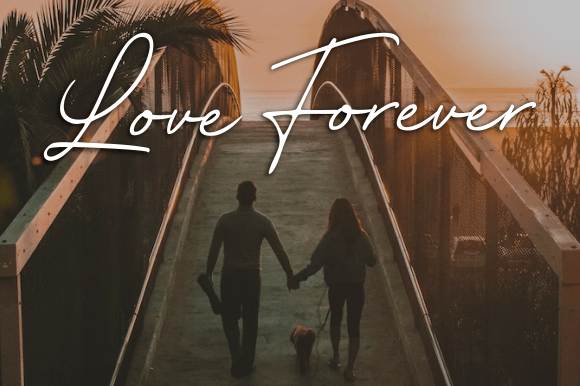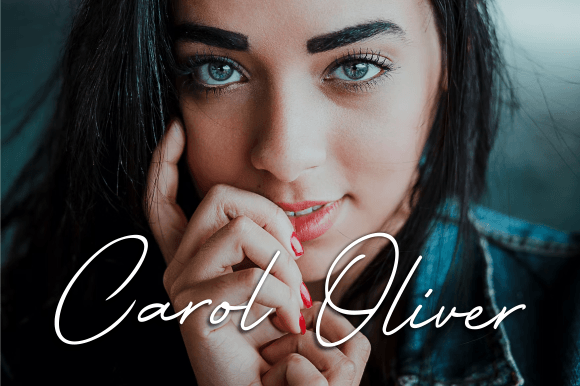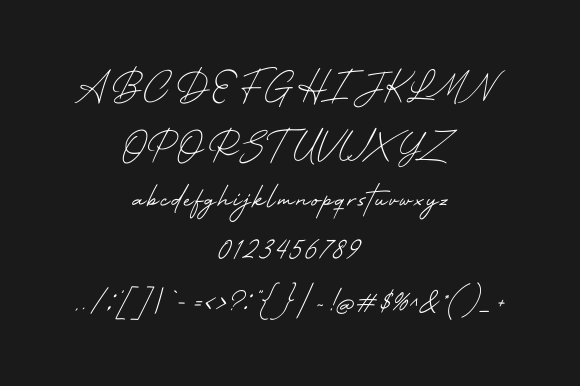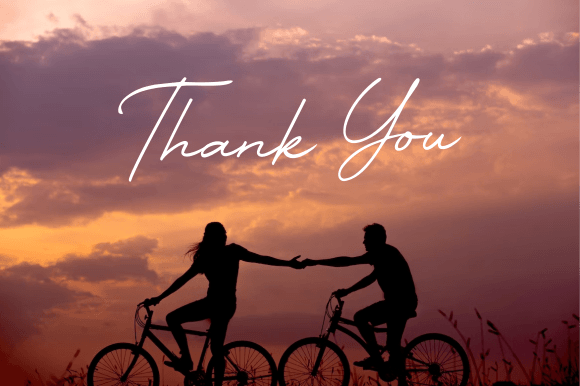
Introduction to Baby Sambodot Font
Have you ever been captivated by the delicate brushstrokes of a handwritten font? For designers, it’s not just about aesthetics; it’s about creating an emotional connection with the audience. And when it comes to high-quality design resources, a well-crafted font can make all the difference.
As I sat at my desk, brainstorming ideas for a creative project, I stumbled upon the Baby Sambodot Font. Its sophisticated and romantic feel instantly caught my attention. I couldn’t wait to explore its full potential. With a transparent background and endless design possibilities, this font is a treasure trove for designers seeking to elevate their work.
Whether you’re designing wedding invitations, business cards, or advertisements, the Baby Sambodot Font is a valuable asset. And the best part? It’s available for free download, making it an accessible design resource for creatives of all levels. In this article, we’ll delve into the world of Baby Sambodot Font and discover why it’s a must-have for any design project.
Key Features of Baby Sambodot Font
- Includes 5 unique styles and 4 weights, providing versatility for various design needs
- Designed with a playful, modern aesthetic, perfect for adding a touch of whimsy to your design
Honest Review: Baby Sambodot Font
I recently stumbled upon the Baby Sambodot Font and was excited to give it a try. As a designer, I’m always on the lookout for high-quality design resources that can elevate my creative projects.
What works well: ✨ The Baby Sambodot Font has a unique and playful style that’s perfect for projects that require a fun and whimsical touch. The font is also incredibly versatile, making it suitable for a wide range of design applications. I appreciate that it’s available for free download, making it an excellent addition to any design toolkit.
One of the standout features of the Baby Sambodot Font is its transparent background, which allows for seamless integration into any design. The font also comes with a range of weights and styles, making it easy to customize to suit your needs.
However, there are some limitations to consider: ⚠️ The font may not be suitable for formal or professional projects, as its playful style may come across as unprofessional. Additionally, the font may not be compatible with all operating systems or design software.
Overall, I’m impressed with the Baby Sambodot Font and would definitely recommend it to designers looking for a creative and fun design resource. Just be sure to use it in the right context!
- Unique and playful style
- Versatile and customizable
The Baby Sambodot Font is ideal for:
Children’s book covers and illustrations.
Party invitations and decorations.
Brand logos and marketing materials.